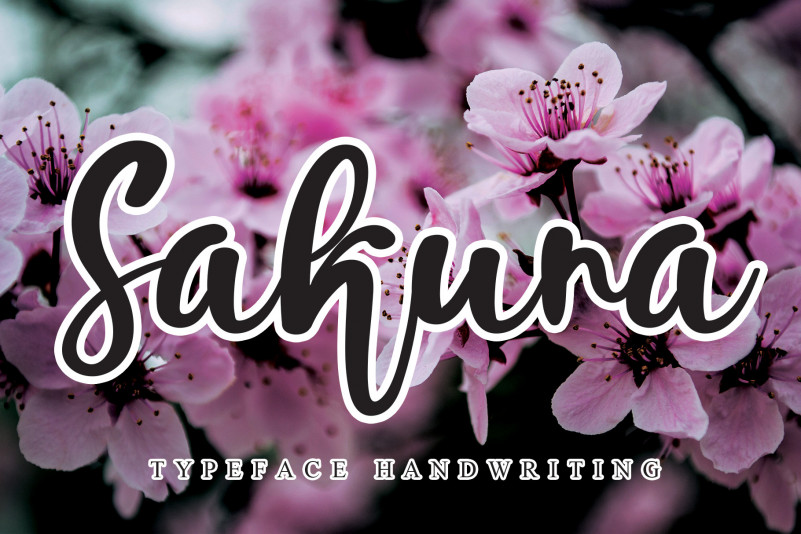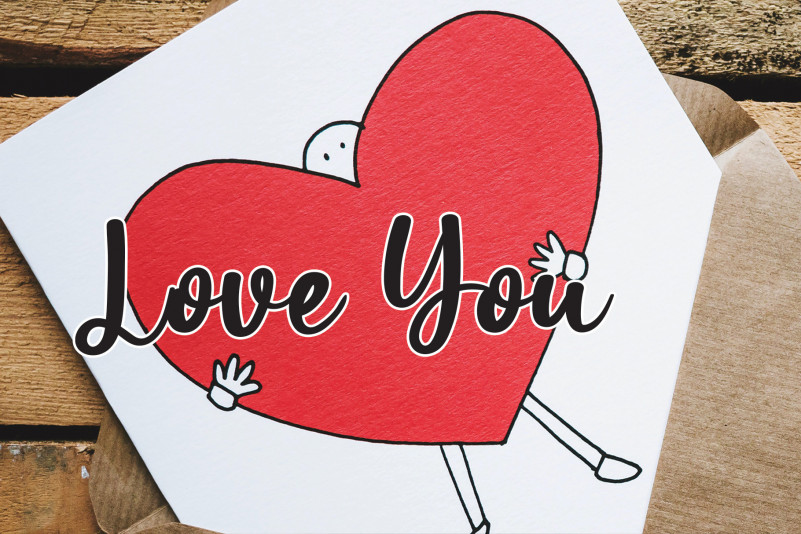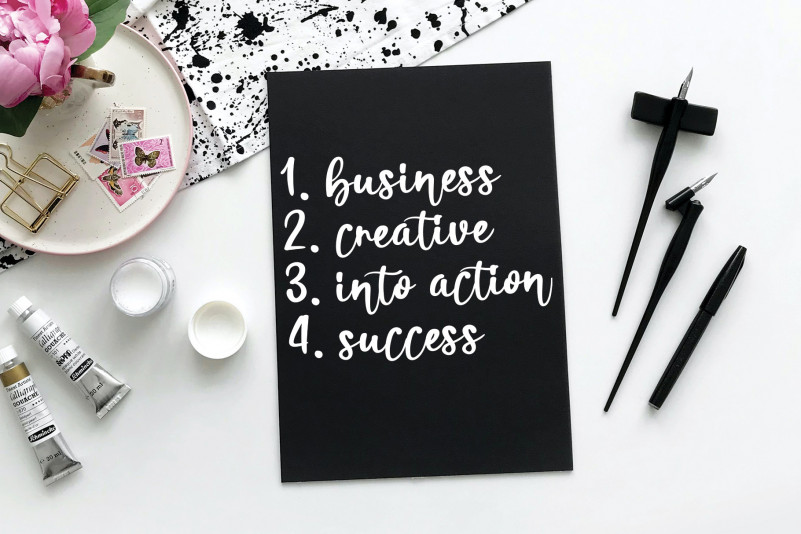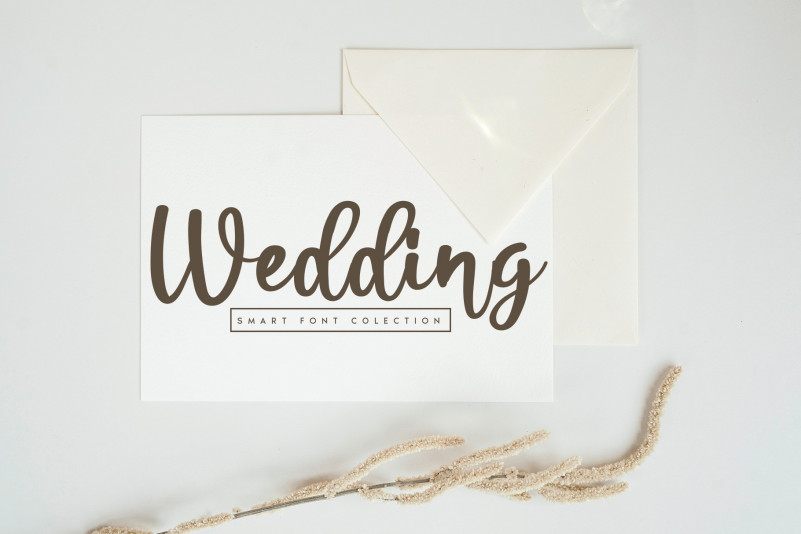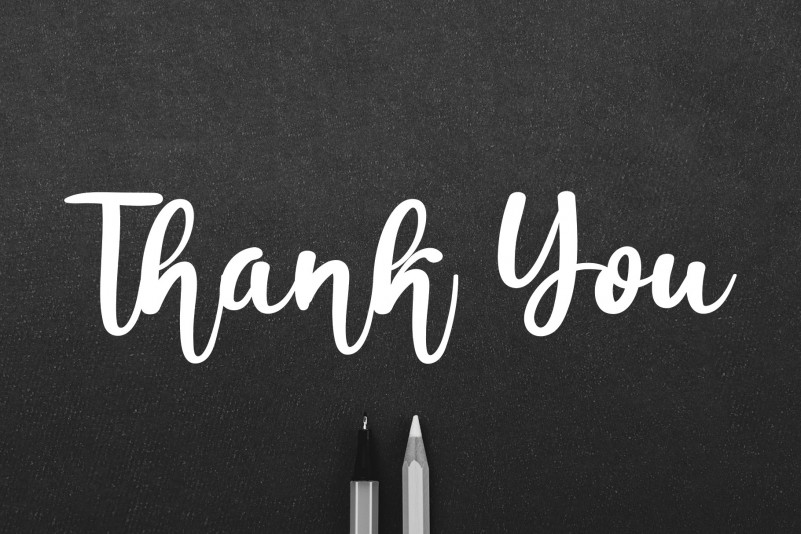
Sakura Script Font
Sakura Script Font is a lovely and timeless handwritten font. Sakura Script is the best choice for creating eye catching logos, branding and quotes. Every letter has a unique and beautiful touch, which will make your design come alive!